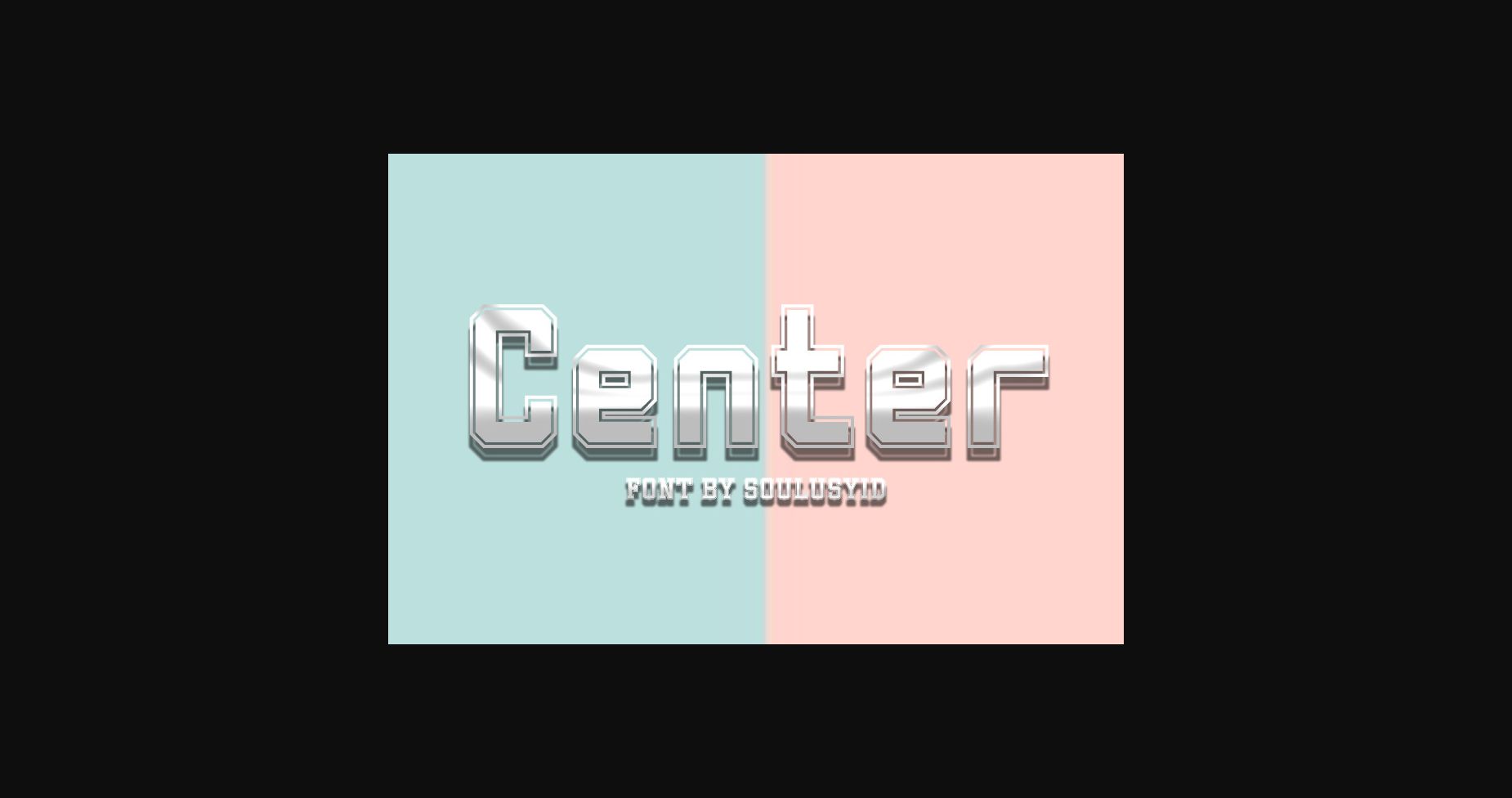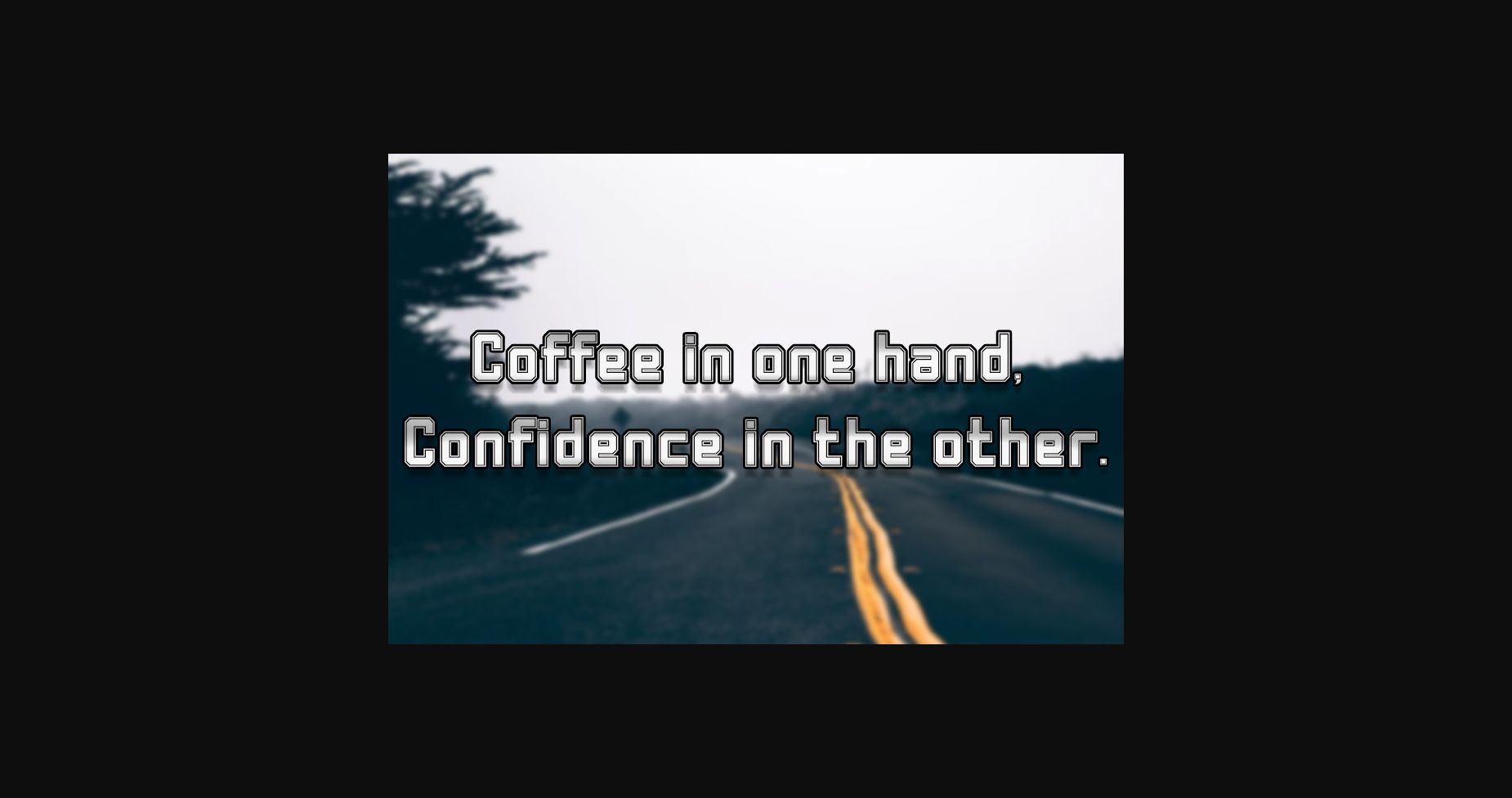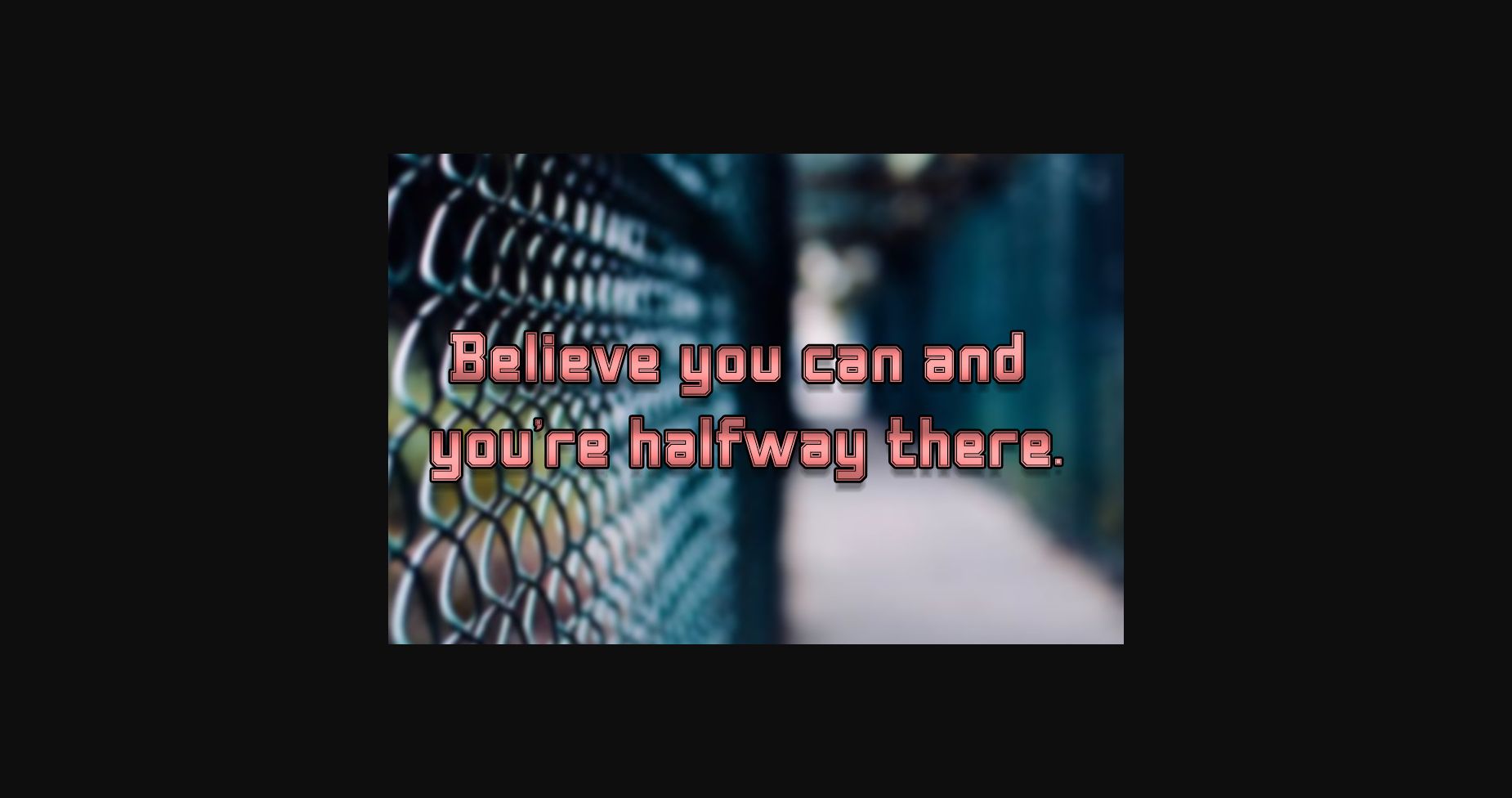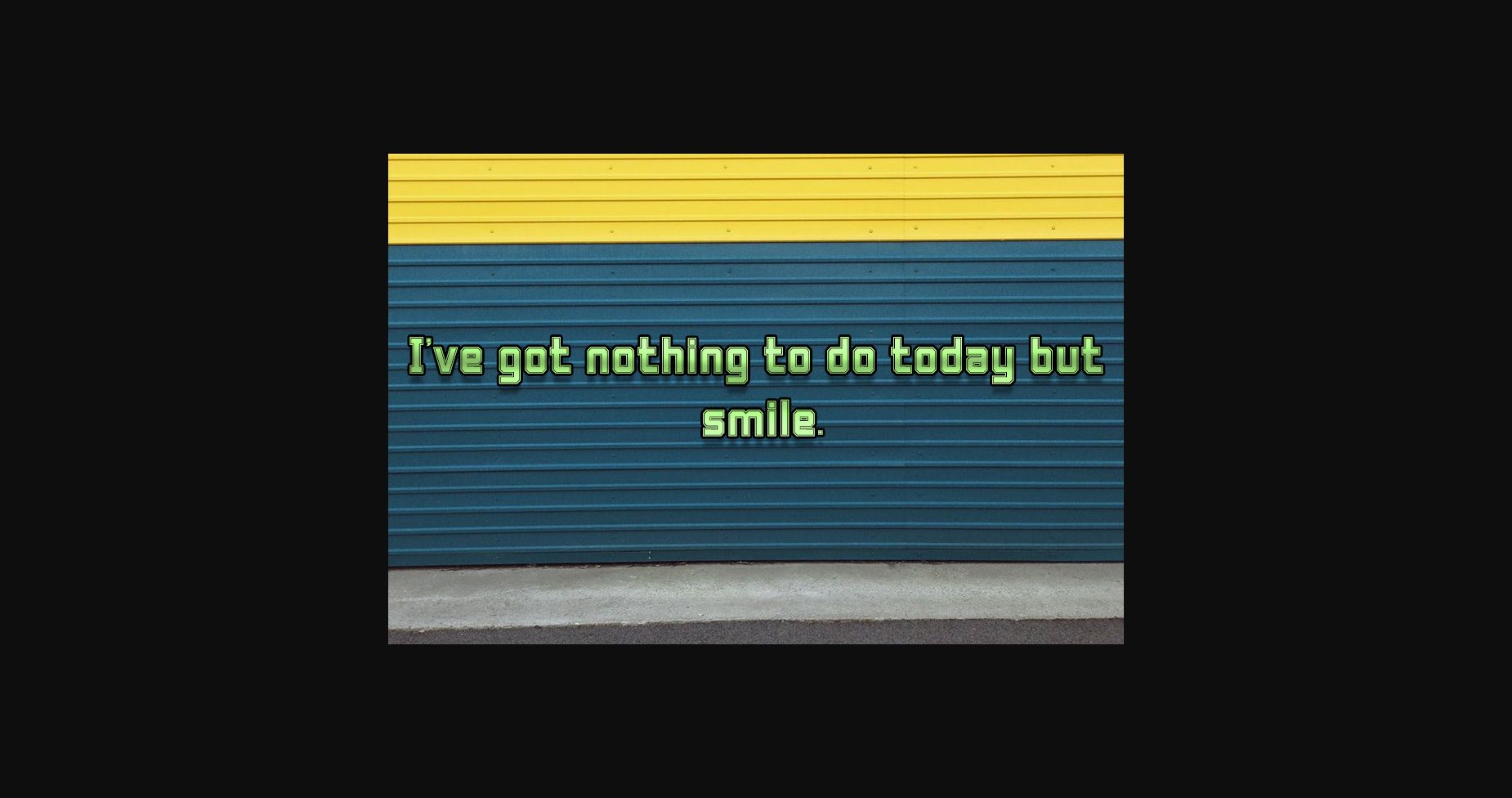
About Center Font
Center is an elegant sans-serif font that blends traditional influences into a contemporary aesthetic. This font is great for branding, logo, greeting cards, business cards, posters, t-shirt designs, menu designs, social media and websites.